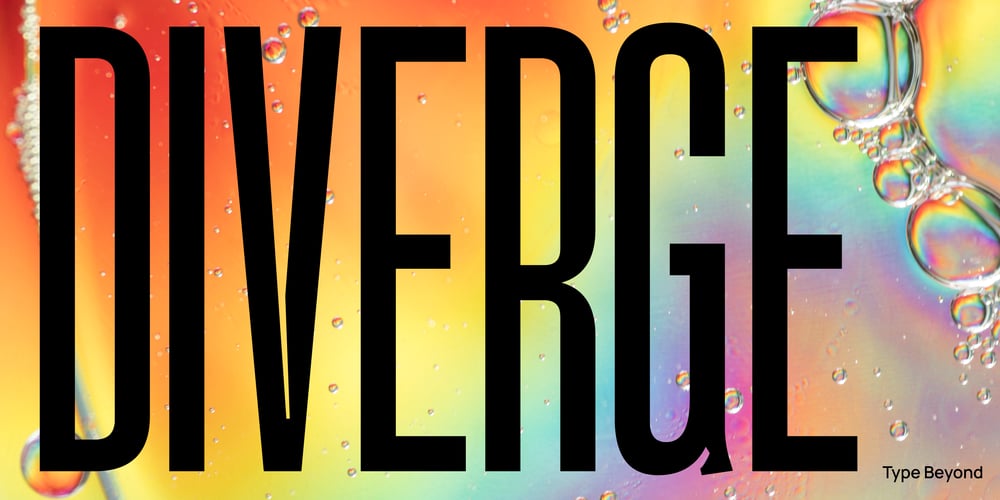
Diverge Variable Font Family was designed by Vishnu Sathyan and published by Vishnu Sathyan. Diverge Variable contains 46 styles and family package options. Introducing Diverge, a dynamic variable font with two axes – Weight and x-height. Inspired by the sleek and modern design of driveways in apartment complexes, Diverge is a font that stands out with its contemporary, yet sophisticated look.The Weight axis of Diverge ranges from Thin to Black, offering designers a wide range of options to choose from. The Thin weight is perfect for delicate and refined designs, while the Black weight commands attention with its bold and impactful appearance.The x-height axis of Diverge ranges from 420 to 800, giving designers greater control over the font’s legibility and versatility. Whether used in body text or headings, Diverge’s x-height axis allows for greater flexibility in design, making it a valuable addition to any designer’s toolkit.Diverge’s variable design is perfect for a wide range of applications, from branding and advertising to editorial design and web development. Its unique look and feel will make any design project stand out from the crowd.